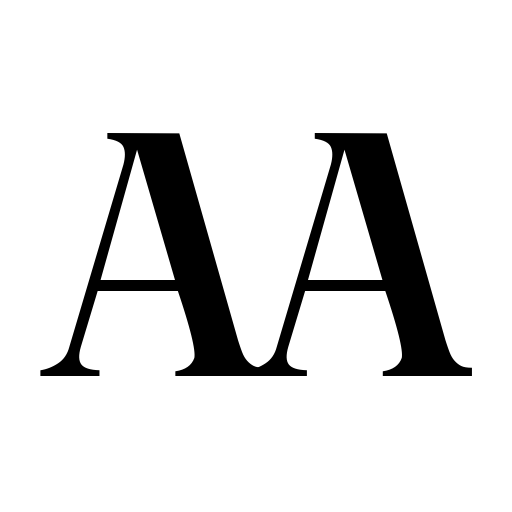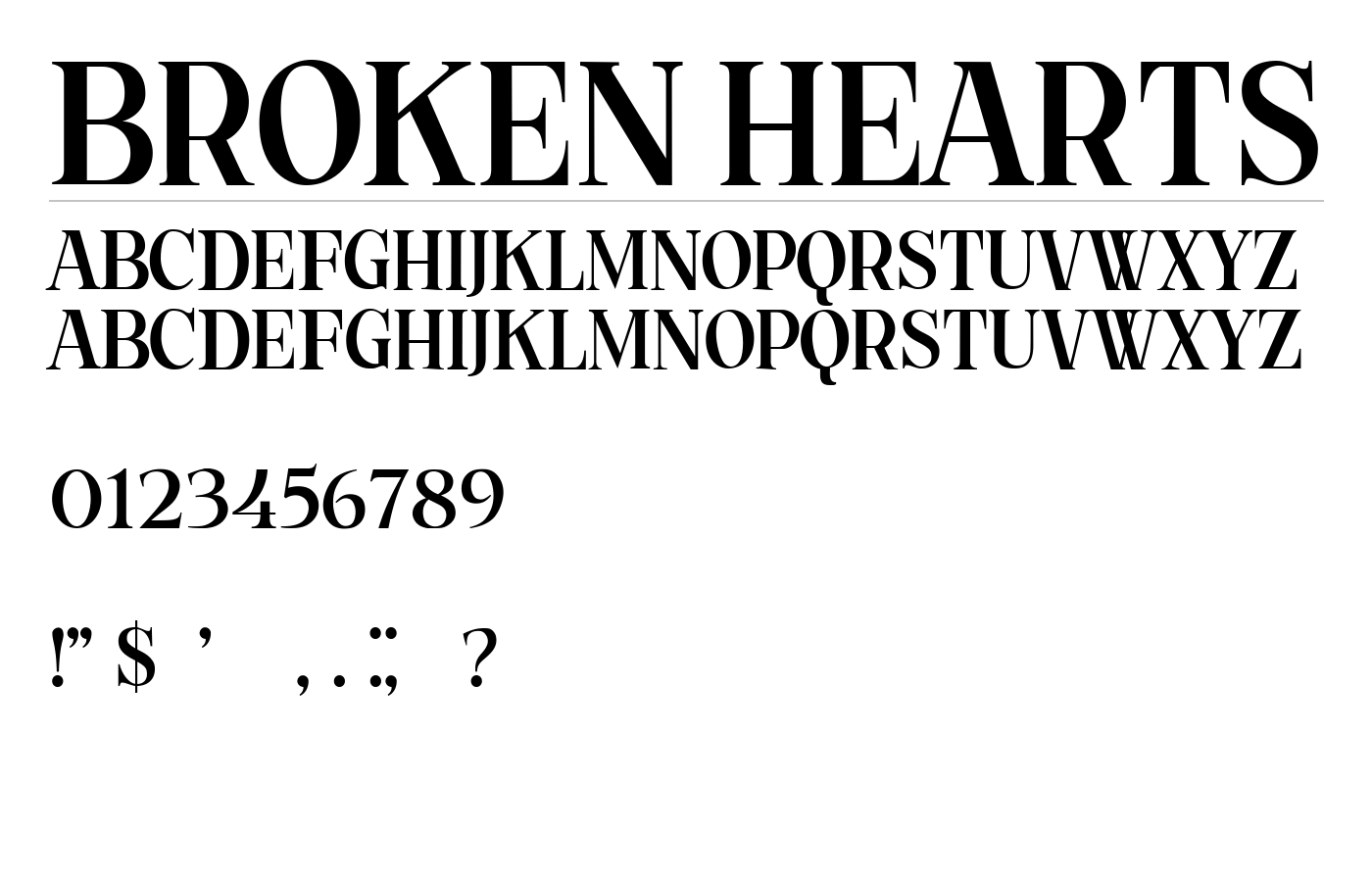
Broken Hearts is a sophisticated serif font featuring a high contrast between thick and thin strokes, with elegant, thin serifs that are slightly bracketed. Its tall, narrow letterforms and refined details create a classic, luxurious feel, making it ideal for fashion branding, editorial headlines, and upscale packaging that require a touch of timeless elegance and drama.
Broken Hearts Font
About Broken Hearts Font